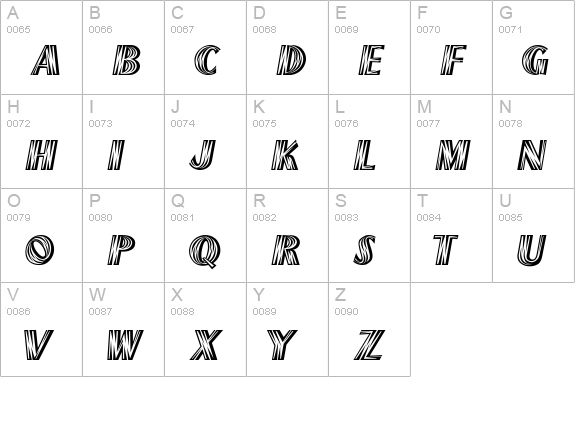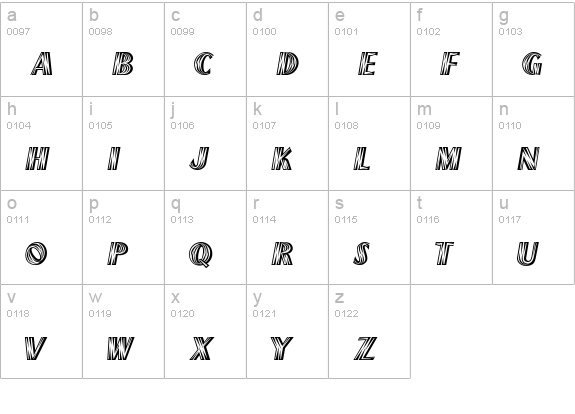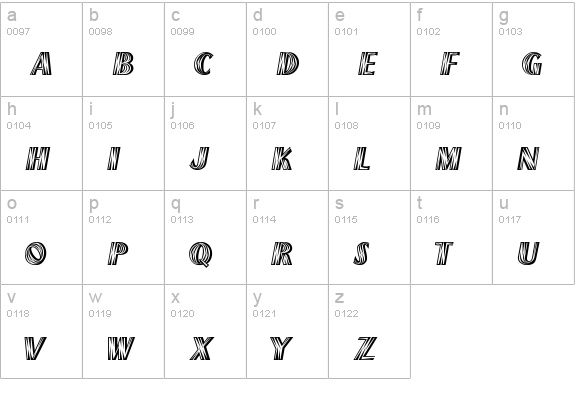
ChiliPepper-ExtraBold Font Details
ChiliPepper-ExtraBold is an extra-heavy, attention-grabbing variant in the ChiliPepper typeface family \xE2\x80\x94 well suited to high-impact headlines, posters, and bold branding.
ChiliPepper-ExtraBold is a bold and striking font that commands attention with its strong and powerful presence. Perfect for headlines, titles, and branding projects, this font exudes confidence and modernity. With its sharp edges and bold strokes, ChiliPepper-ExtraBold makes a statement wherever it is used. And the best part? ChiliPepper-ExtraBold is available for free download at FontsMarket.com. Whether you're a designer looking to add a bold touch to your projects or a business in need of a strong visual identity, ChiliPepper-ExtraBold is the perfect choice for making a lasting impression. Download it today and elevate your designs with this eye-catching font.